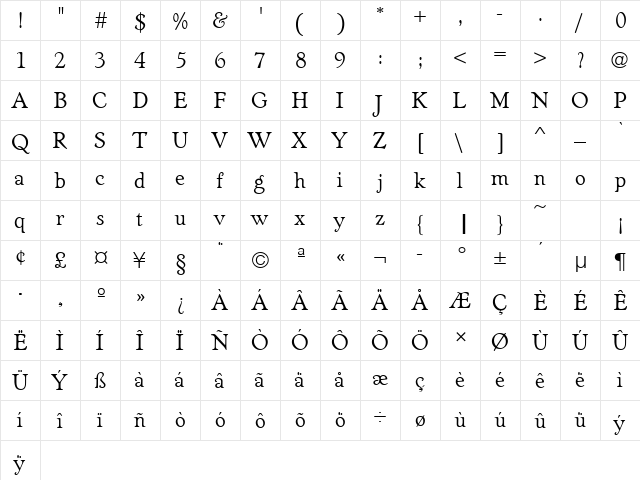
ArtcraftURWTReg Regular
Design Context for ArtcraftURWTReg Typeface
ArtcraftURWTReg takes a measured approach to typography — its balanced proportions and neutral character make it a reliable workhorse for both digital and print work.